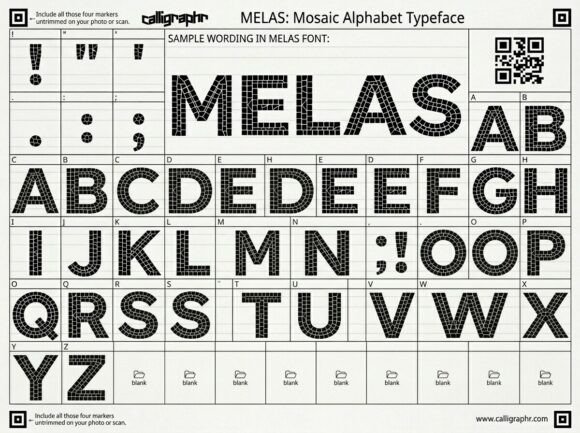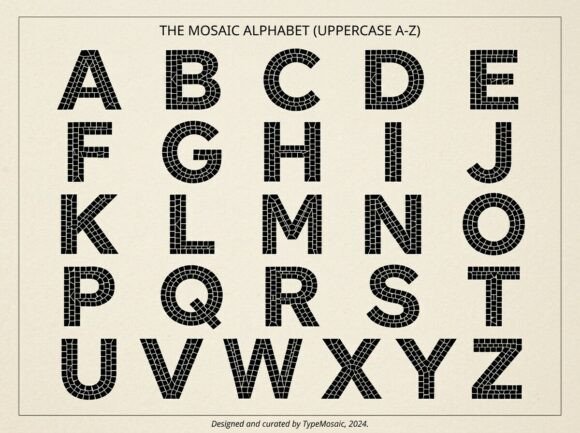
Introduction to Melas Font
Have you ever stared at a blank canvas, eager to bring your creative vision to life, only to be held back by a lack of inspiration? It’s a frustrating feeling, but one that can be easily alleviated with the right design resource. Enter Melas Font, a stunning display font that’s sure to elevate your creative projects to new heights.
Whether you’re working on a bold headline, a creative branding project, or packaging design, Melas Font is the perfect tool to deliver a high-end, professional aesthetic without sacrificing personality. Its distinct artistic elements and strong character make it a valuable addition to any designer’s toolkit, and its transparent background ensures seamless integration into your design.
Key Features of Melas Font
- High-quality design resource with a unique and creative style perfect for various creative projects.
- Includes a comprehensive character set, including uppercase and lowercase letters, numbers, and punctuation marks.
Honest Review: Melas Font
As a designer, I’m always on the lookout for high-quality design resources that can elevate my creative projects. Recently, I had the chance to try out the Melas Font and I must say, it’s been a pleasant experience.
Here are some things that work well with Melas Font: ✨
- Beautiful, elegant design that’s perfect for branding and marketing materials
- High-resolution files that ensure crisp, clear text in print and digital formats
However, there are a few limitations I’d like to point out: ⚠️
- Some users might find the font too ornate for certain design projects
- The transparent background option could be more seamless
Overall, I’m impressed with Melas Font and I’d definitely recommend it to designers looking for a high-quality design resource. Its elegant design and high-resolution files make it an excellent choice for branding and marketing materials, and the free download option is a bonus. With a few minor tweaks to address some limitations, Melas Font could become a go-to font for designers everywhere.
Getting the Most Out of Melas Font
To get the most out of Melas Font, use it in conjunction with other high-quality design resources. Experiment with different font sizes, styles, and colors to create a unique look. The Melas Font is perfect for creative projects, such as logos, graphics, and presentations.
The Melas Font is commonly used in creative projects, such as logos, graphics, and presentations. It’s also a great design resource for web design, marketing materials, and social media graphics. The Melas Font’s high-quality design and transparent background make it easy to use in a variety of design applications.